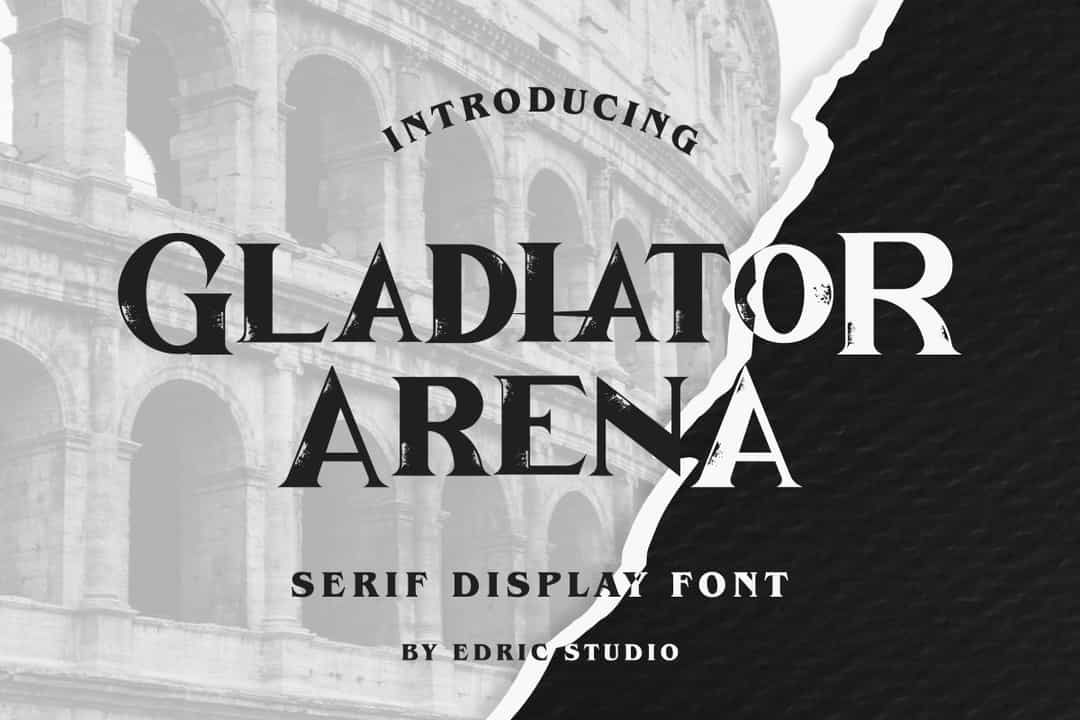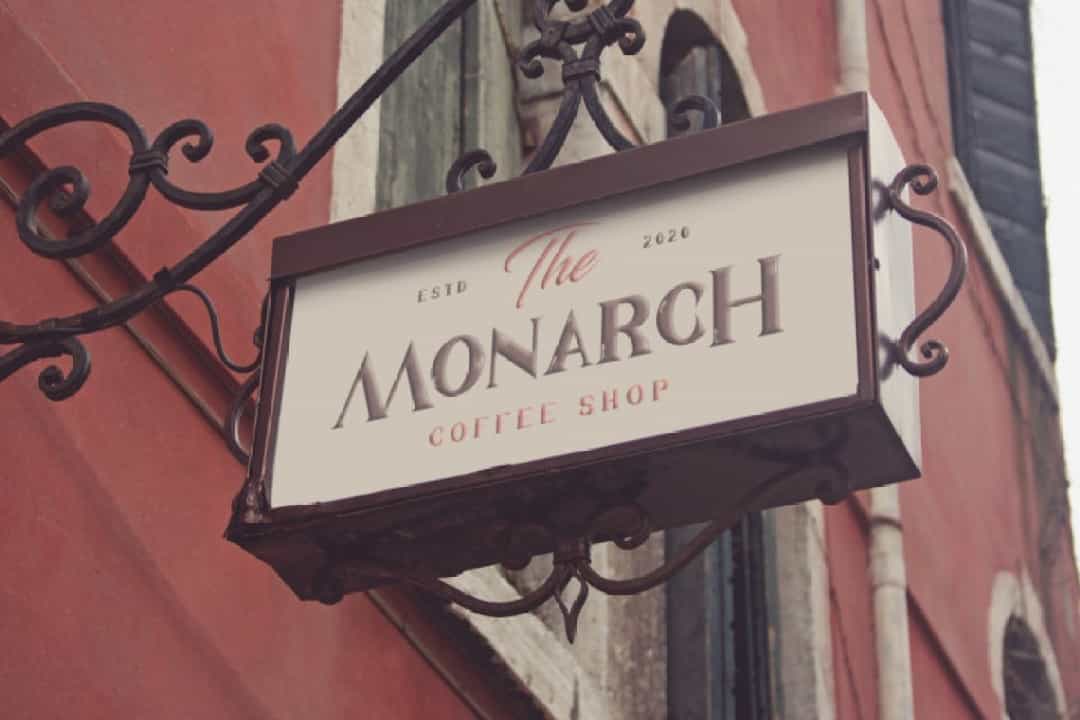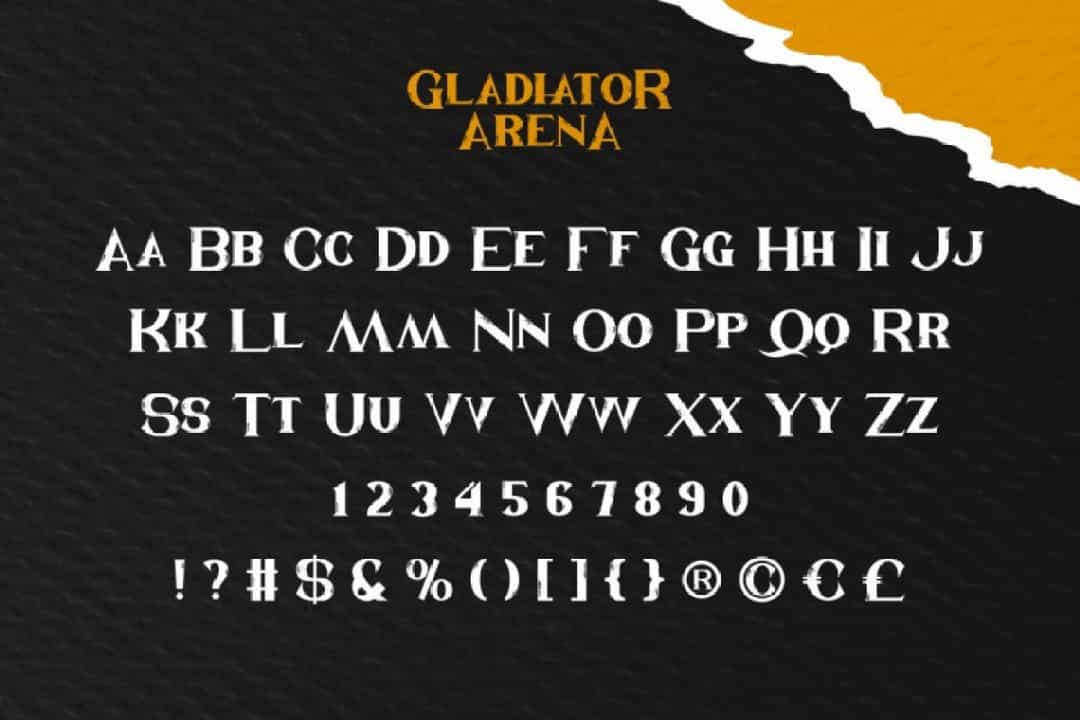
Gladiator Arena is an eye-catching display serif typeface inspired by Roman gladiatorial combat and boasting textures derived from gladiators’ armor and shield. Bold with sharp edges, Gladiator Arena makes an ideal font to use for book titles, other written work, marking tourist sites or anything requiring different styles of serif fonts.